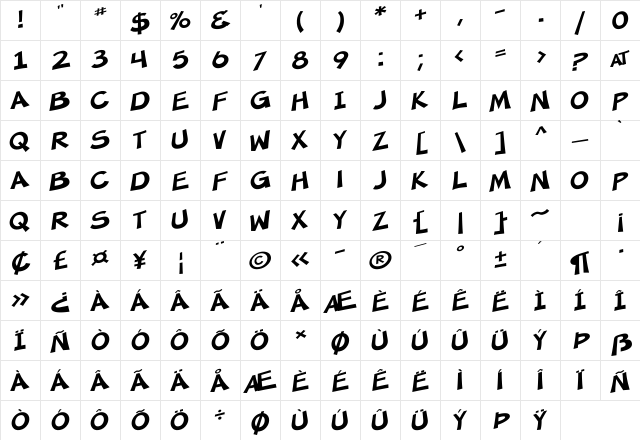
SF Minced Meat Regular Free Font
SF Minced Meat Regular
Complete SF Minced Meat Regular glyph index. Displaying only characters natively supported by SF Minced Meat Regular font.
Design Context for SF Minced Meat
SF Minced Meat is a composed and adaptable typeface that performs quietly and consistently across a wide range of design contexts.
Pro Tip: Use SF Minced Meat in both headline and body roles to test its range before committing to a single application.